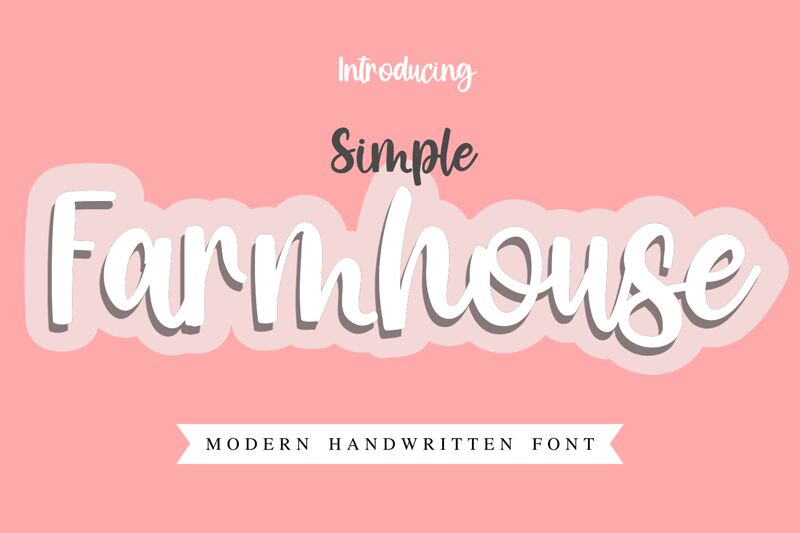
Simple Farmhouse
Simple Farmhouse is a captivating handwritten font crafted by Goodrichees. This rustic and charming typeface exudes a warm, inviting aesthetic that evokes a sense of vintage charm and natural authenticity. Its organic, uneven strokes and playful ligatures lend an artisanal, handcrafted feel, perfectly suited for projects seeking a timeless, homespun vibe.
Simple Farmhouse's versatility allows it to seamlessly blend into a wide range of design applications, from rustic wedding invitations and farmhouse-inspired branding to cozy product packaging and charming social media graphics. Its versatile personality effortlessly adapts to capture the essence of homemade, heartfelt, and handcrafted aesthetics, making it a valuable asset for designers and creatives seeking to infuse their projects with a touch of countryside elegance.